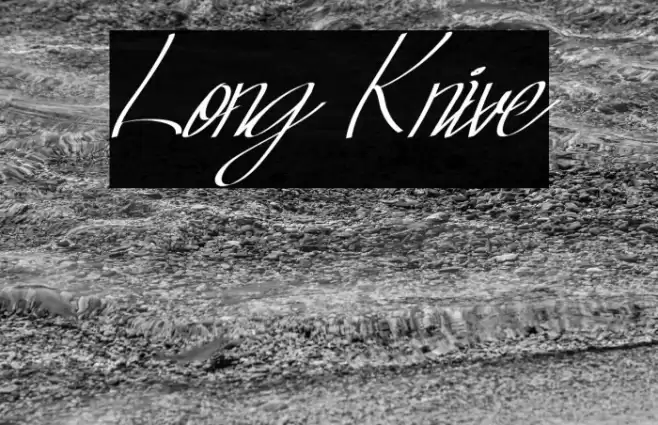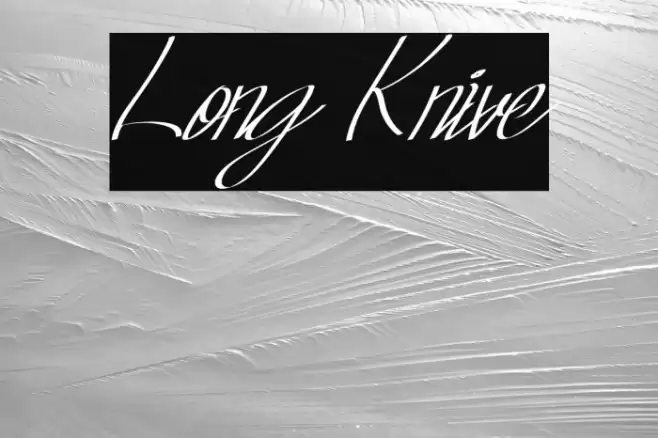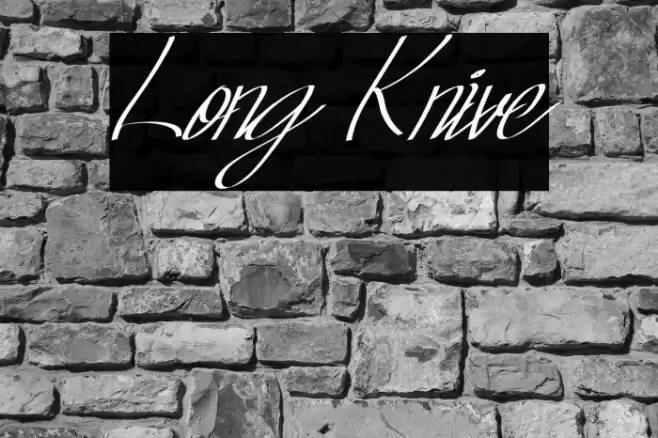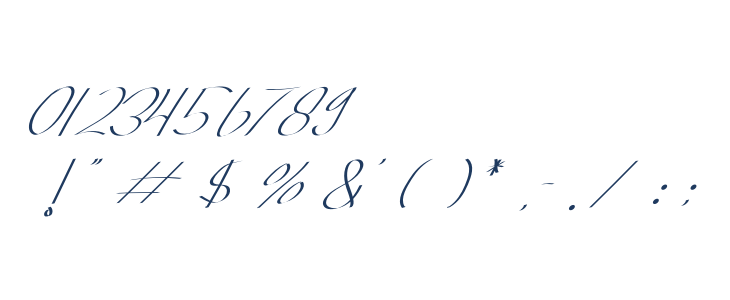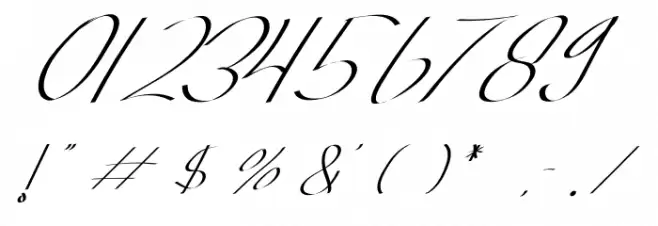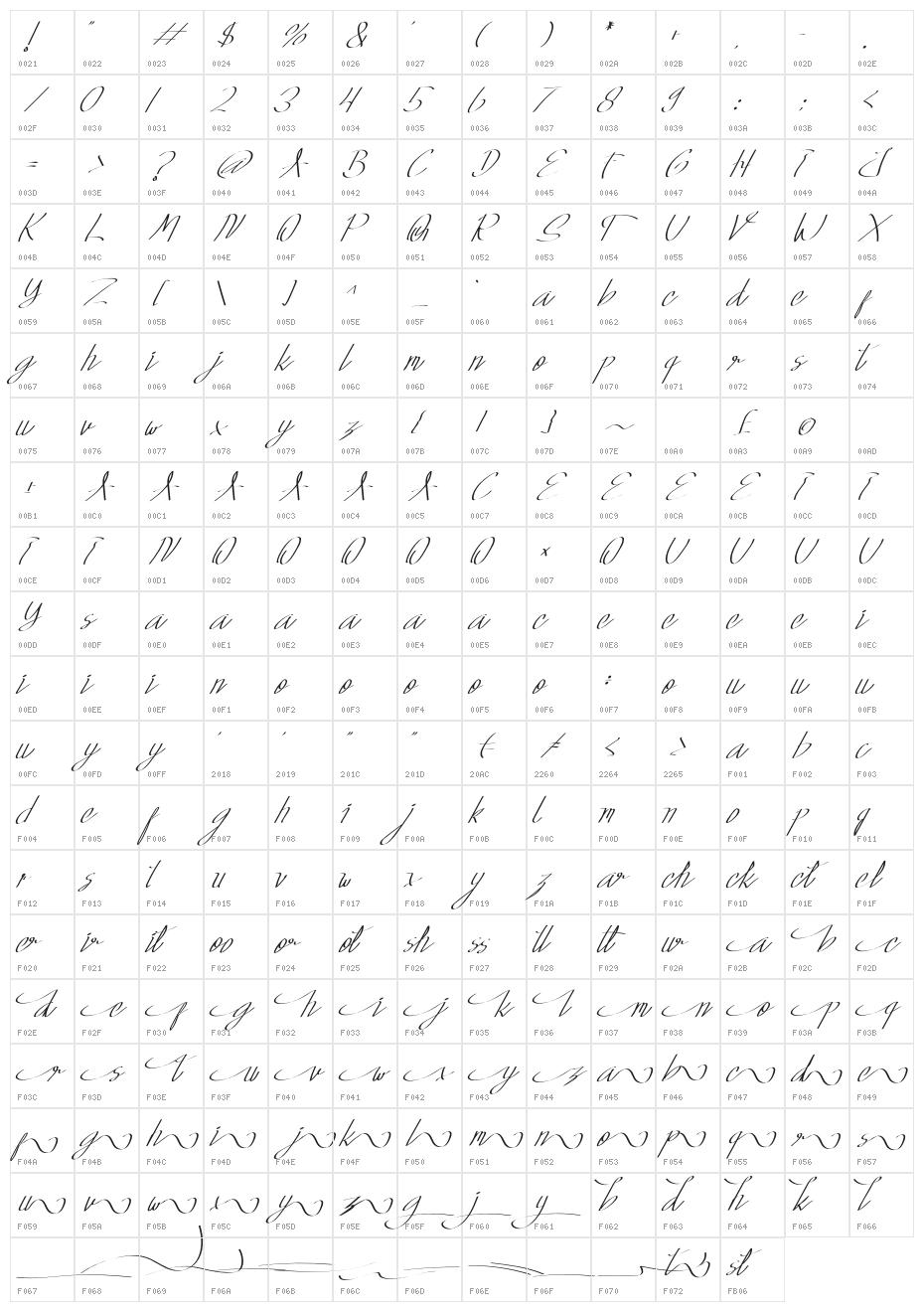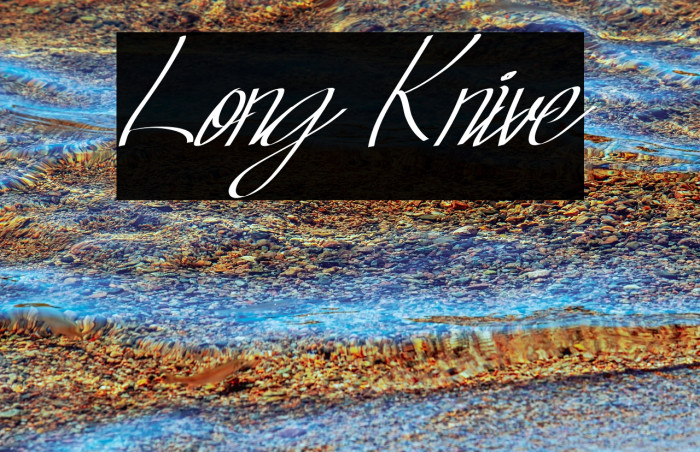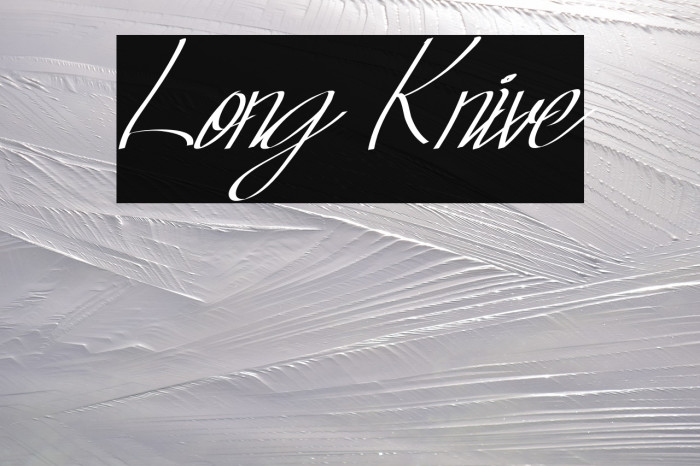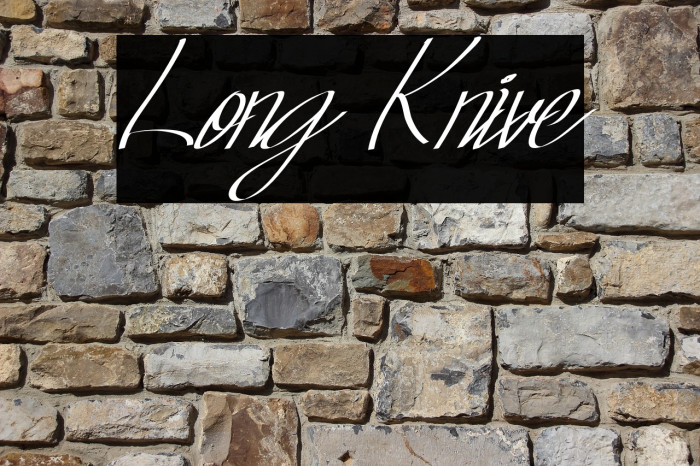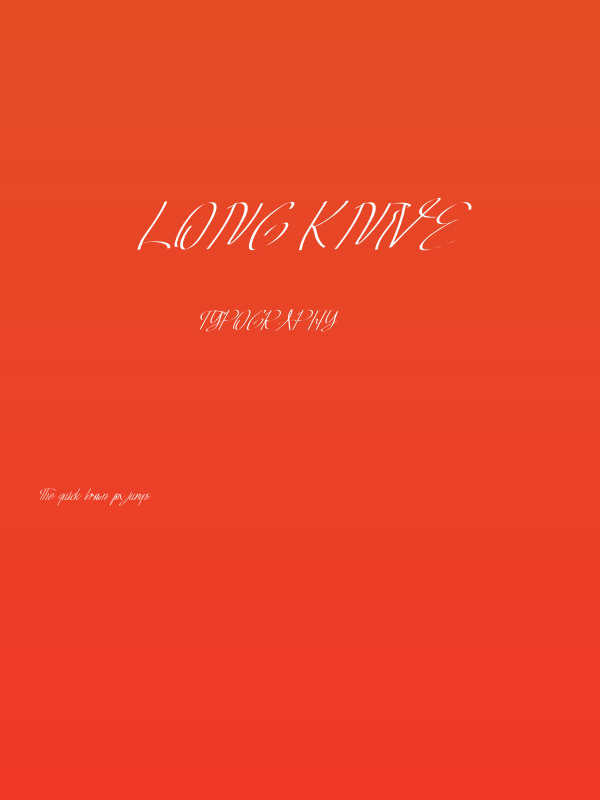
Long Knive Font
Long Knive Description
This font features a dynamic and elegant script style, characterized by its fluid and continuous strokes. The letters are connected in a way that mimics natural handwriting, with a slight slant to the right, adding a sense of motion and grace. The uppercase letters are tall and slender, while the lowercase letters maintain a consistent flow, enhancing readability. The numerals and special characters are crafted with the same attention to detail, ensuring a cohesive look across all elements. This font's artistic flair makes it suitable for creative and expressive design projects.
A fluid and elegant script font with connected, flowing strokes from Uncategorized fonts.
- Proposed Projects: Ideal for wedding invitations, greeting cards, personal branding, and artistic projects.
- Overall Style: Elegant
- Use Case: Logos, Invitations, Artistic designs